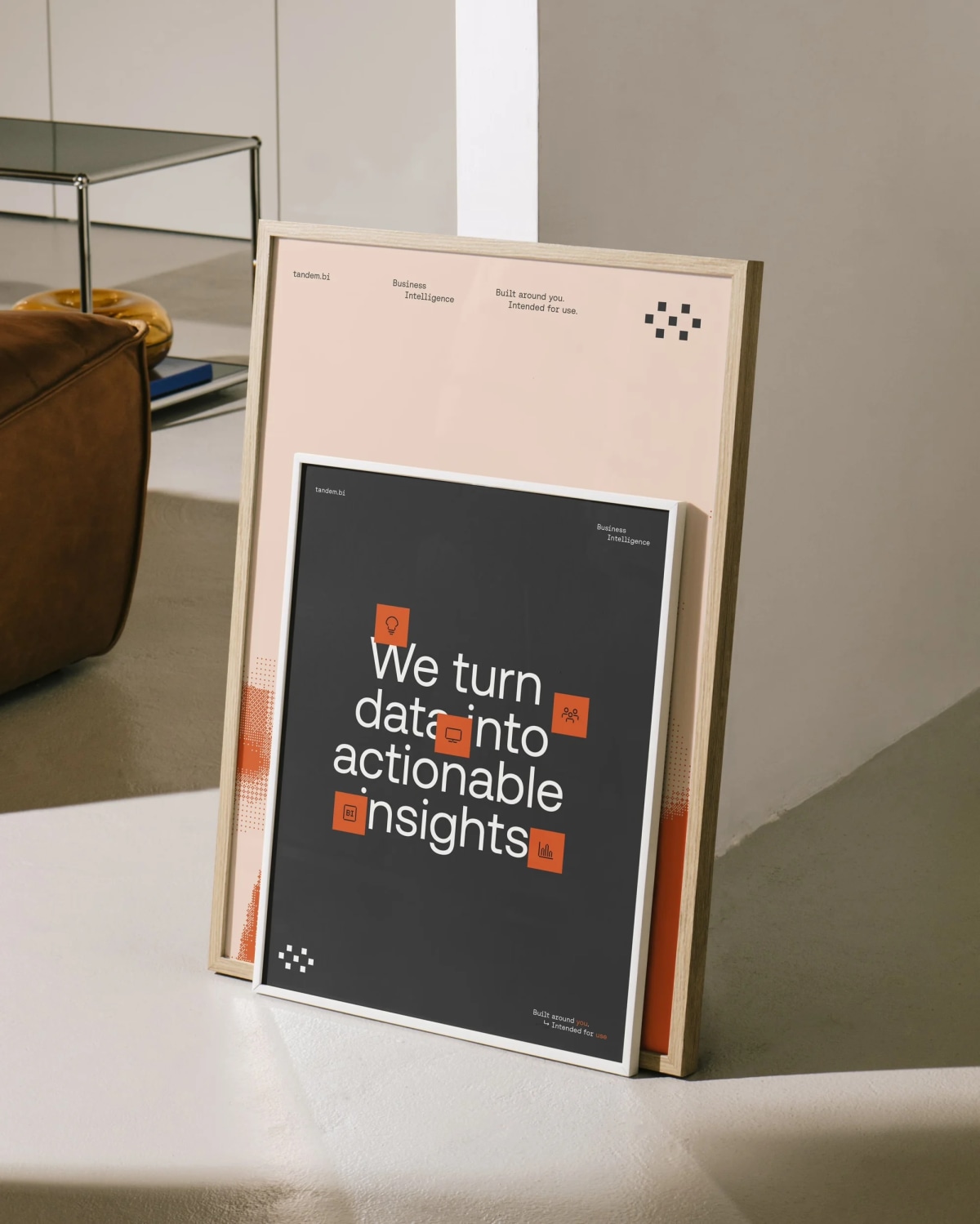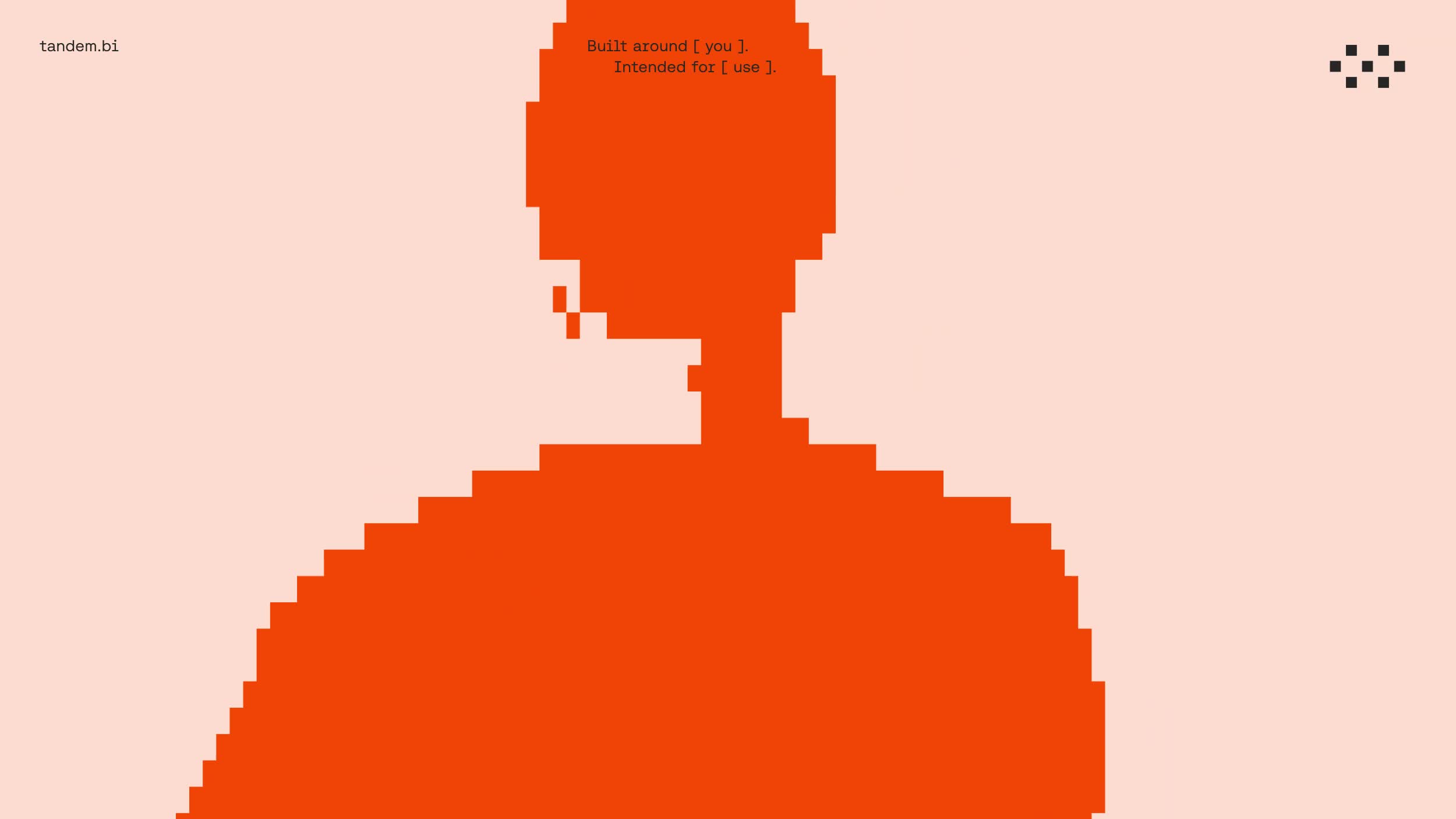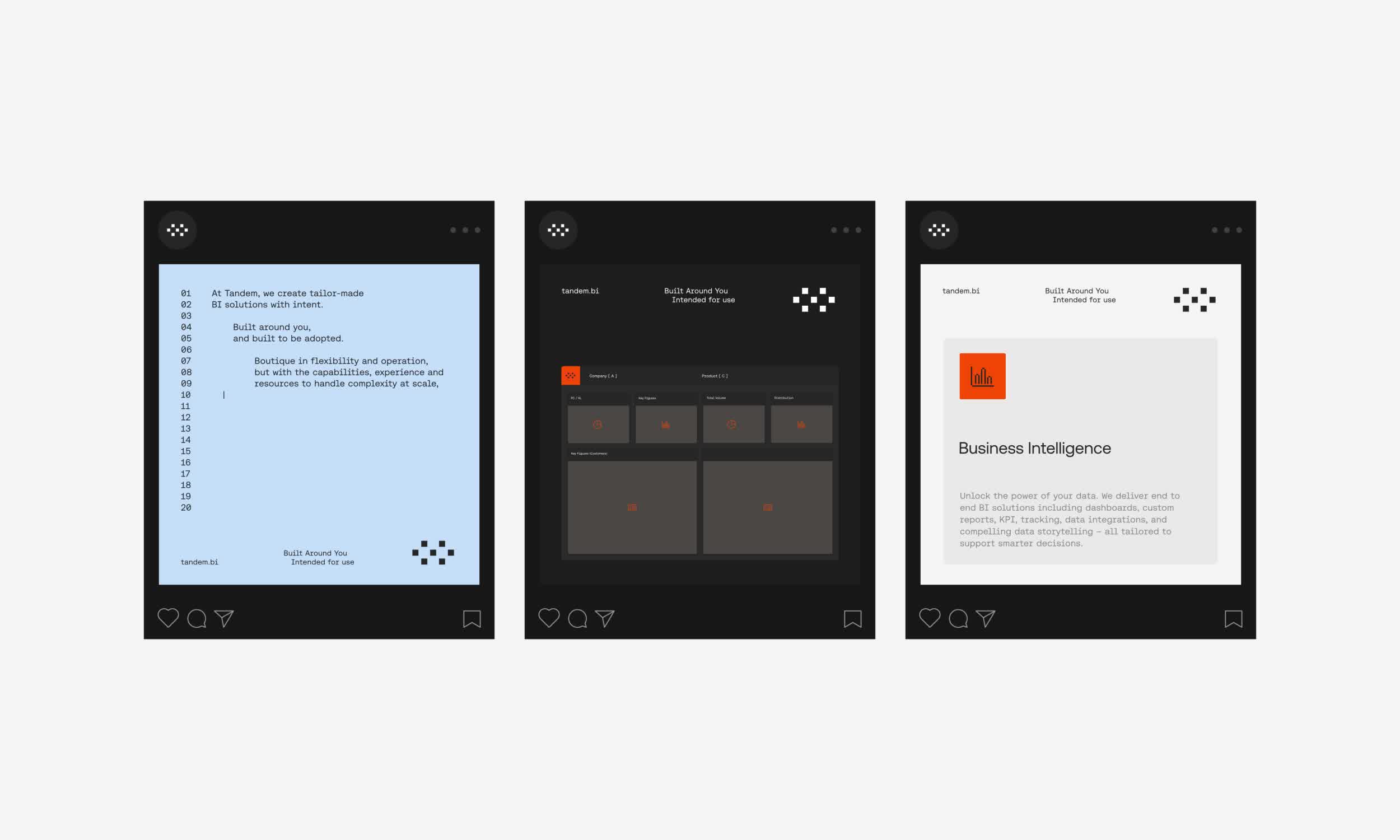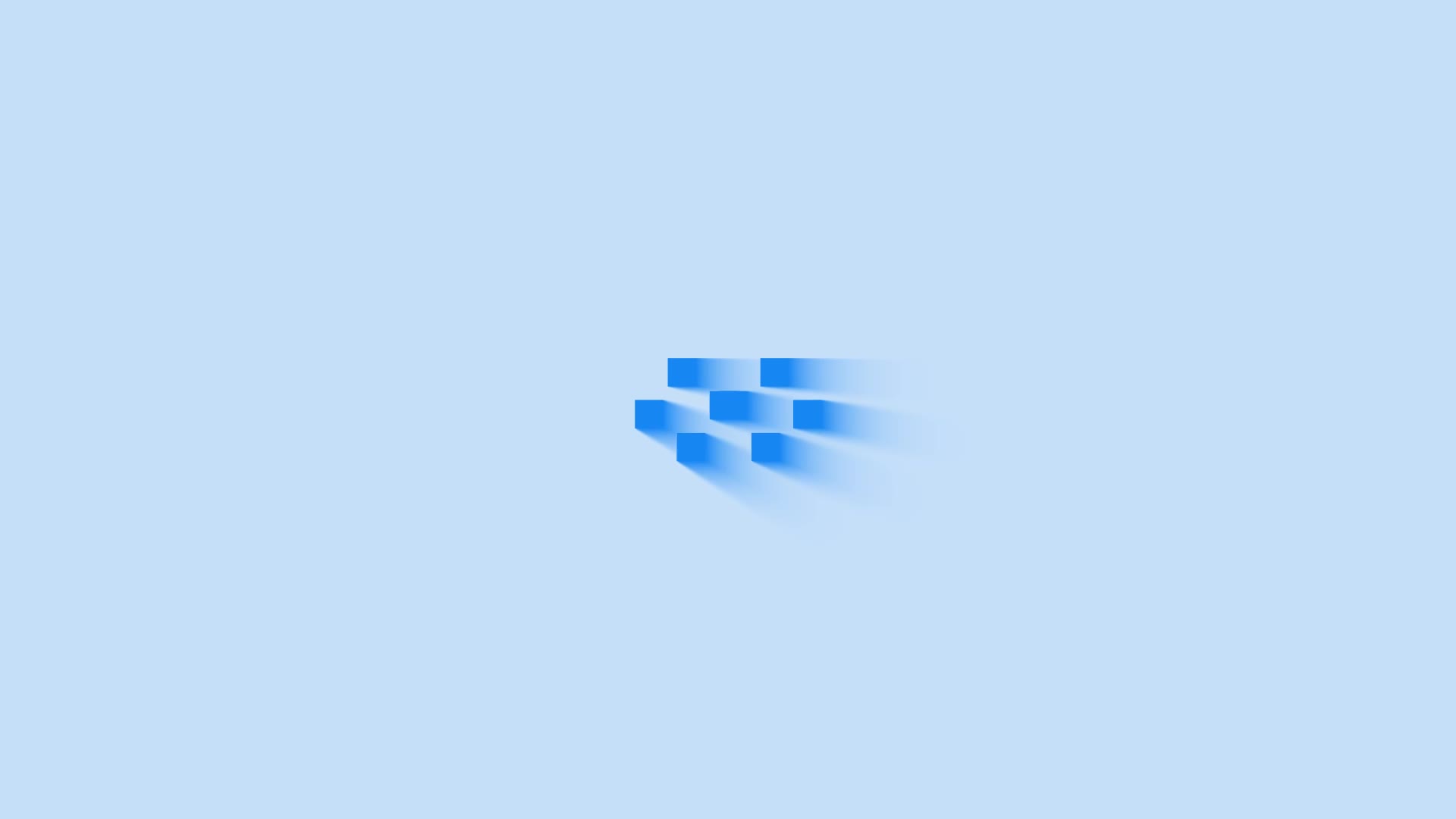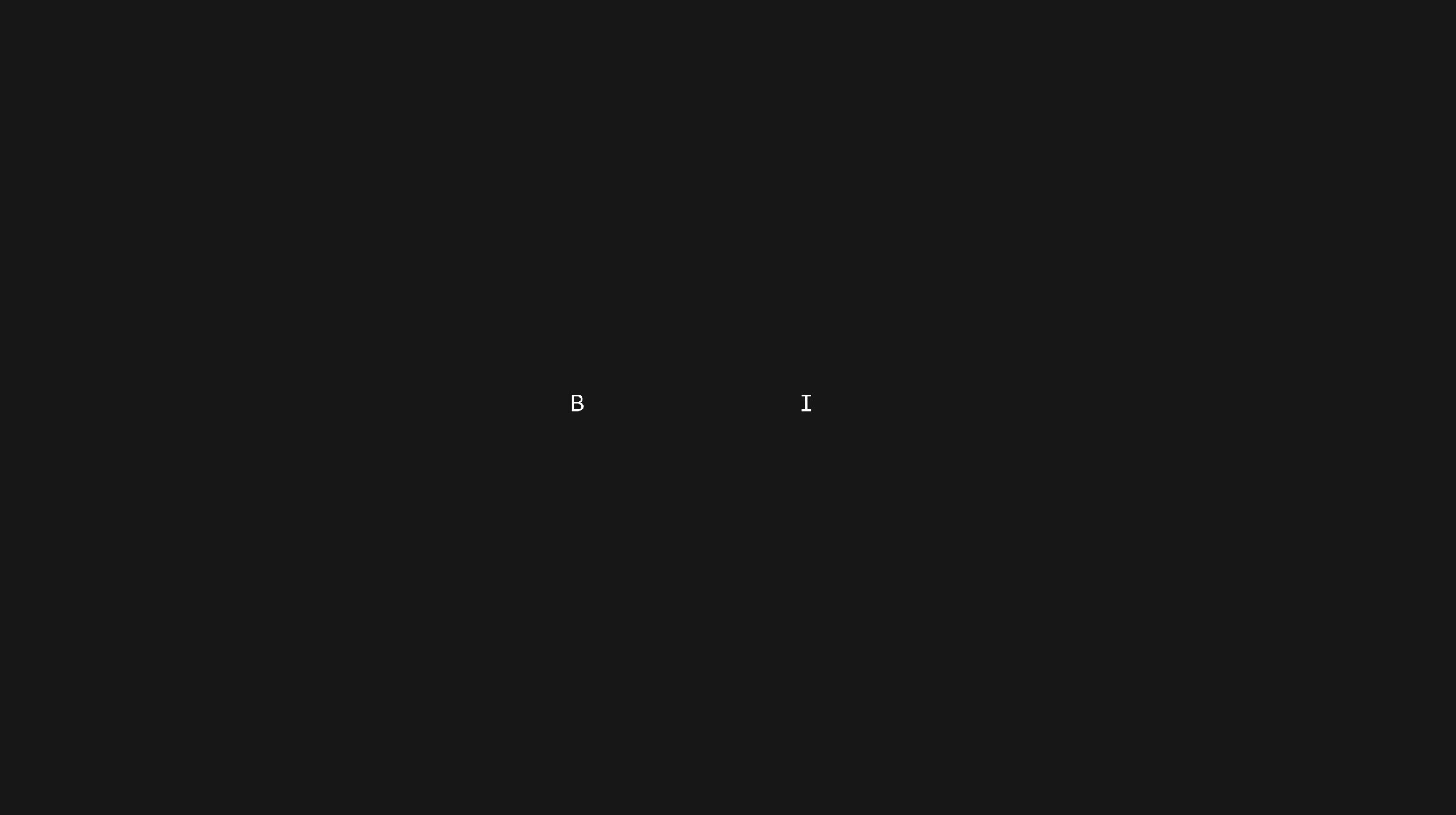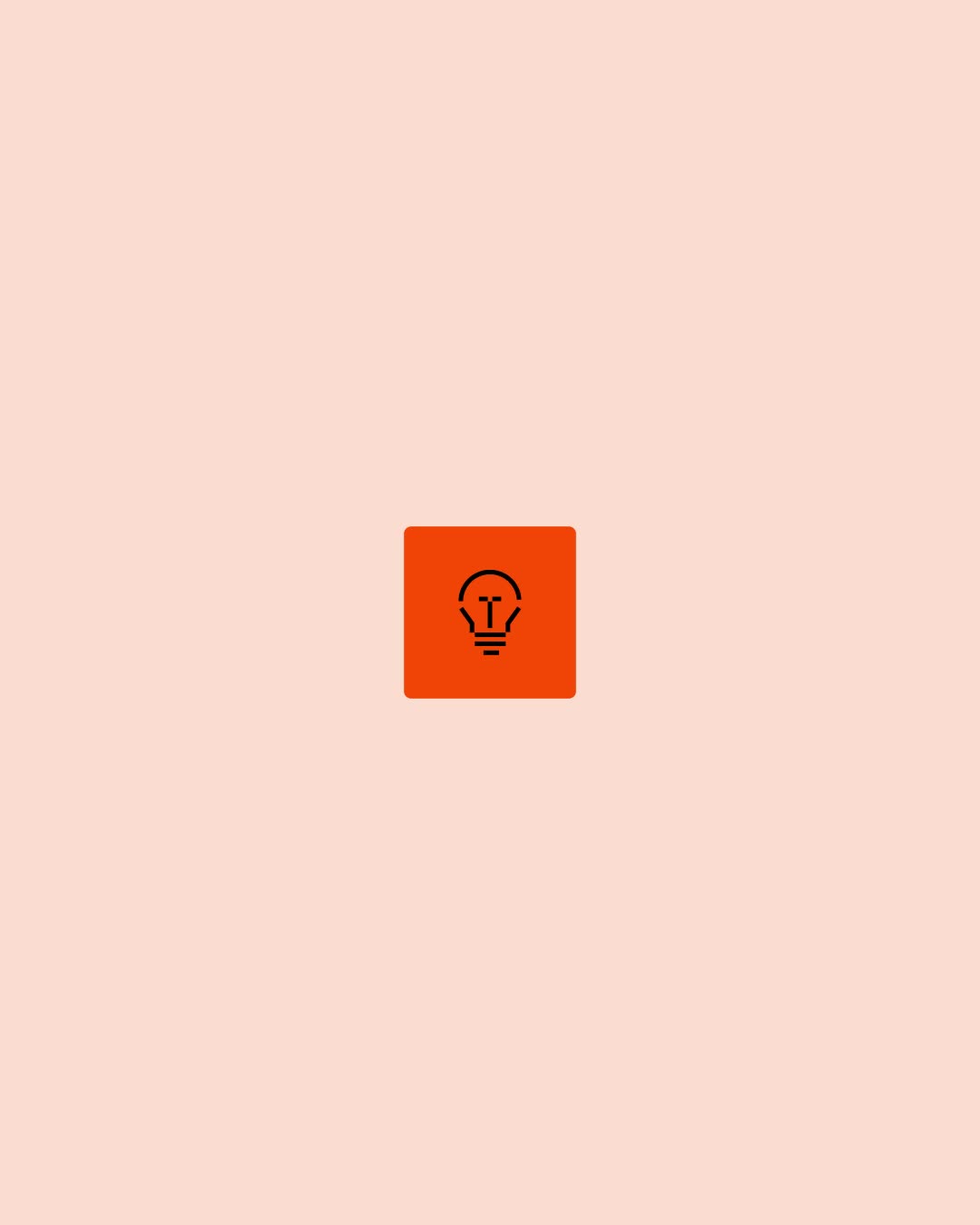
Tandem
by PONDER
Seven-pixel interlocking gears for BI software. Stretches into supergraphic system. Maximum meaning in minimum pixels without retro clichés.